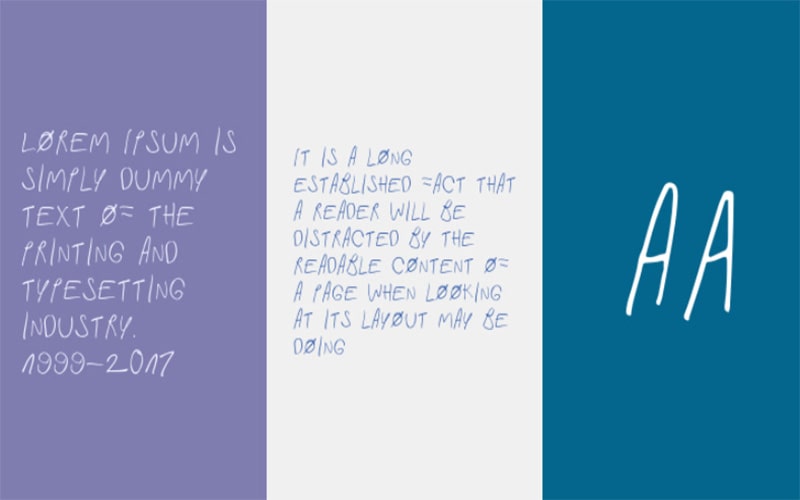
Fast in My Car Font is a beautiful script and handwritten typeface that has the stylish and coolest texture. This script font was originally designed and published by Erik Reys.
The free font can be found in only one weight including regular. And it has 146 characters. It can work properly in completing the design structure required for you.
Therefore, it meets all the requirements given by the clients and also provides a unique design defensively. It is created with cross and slime strokes just to give a decent look and is available on anchor fonts.
Fast in My Car Font
Similarly, if you look at this stunning font that has been created with regular and cursed strokes. We are sure that its super typeface will work admirably for you in the future.
The excellent quality font has its unique structure, combining perfectly with the right space and padding which makes it a great choice in every way. Indie Flower Font is a similar typeface which you may also try.